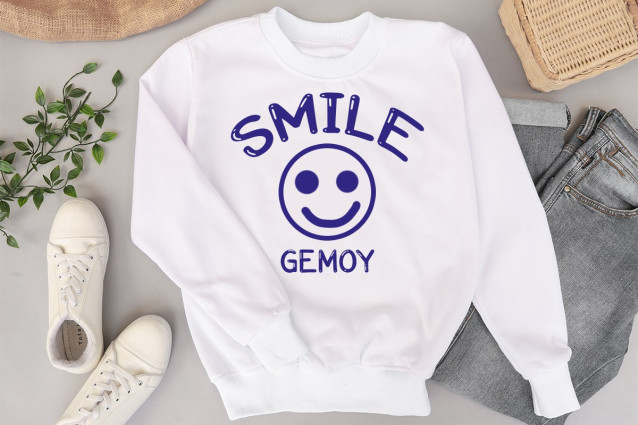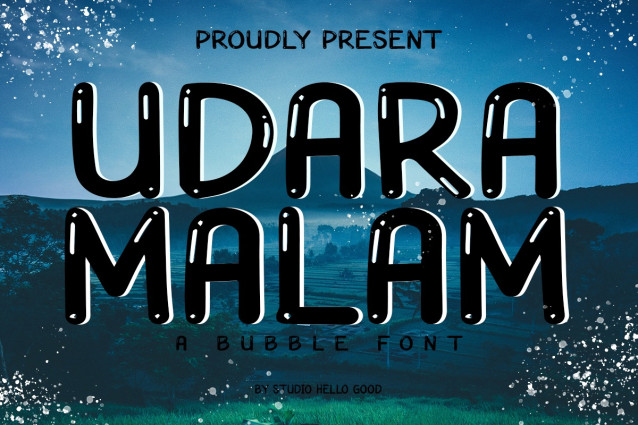
Udara Malam Font
Udara Malam Font, a whimsical and enchanting font designed to ignite the imagination of children, add a touch of charm to clothing designs, and bring a playful vibe to movie titles and promotional materials.
Udara Malam captures the magic of childhood adventures with its playful curves, friendly demeanor, and hint of mischief. Each letter dances across the page like characters in a storybook, inviting young readers to embark on a journey of wonder and discovery.
Whether adorning clothing designs for children or accessories, Udara Malam infuses a sense of joy and whimsy into every stitch. Its playful yet legible style makes it the perfect choice for adding a touch of personality to kids’ apparel, from t-shirts to pajamas, ensuring that little ones can express their vibrant personalities wherever they go.
In the realm of movies, Udara Malam sets the stage for enchanting tales and magical adventures. Whether used in titles, subtitles, or promotional materials for family-friendly films, this font captures the imagination and transports viewers to fantastical worlds filled with laughter and excitement.
Embrace the spirit of childhood wonder and imagination with Udara Malam. Let its playful charm bring joy to young readers, add whimsy to clothing designs, and infuse movie titles with a sense of magic and adventure. With Udara Malam, every project becomes a delightful journey into the fantastical realm of childhood dreams.